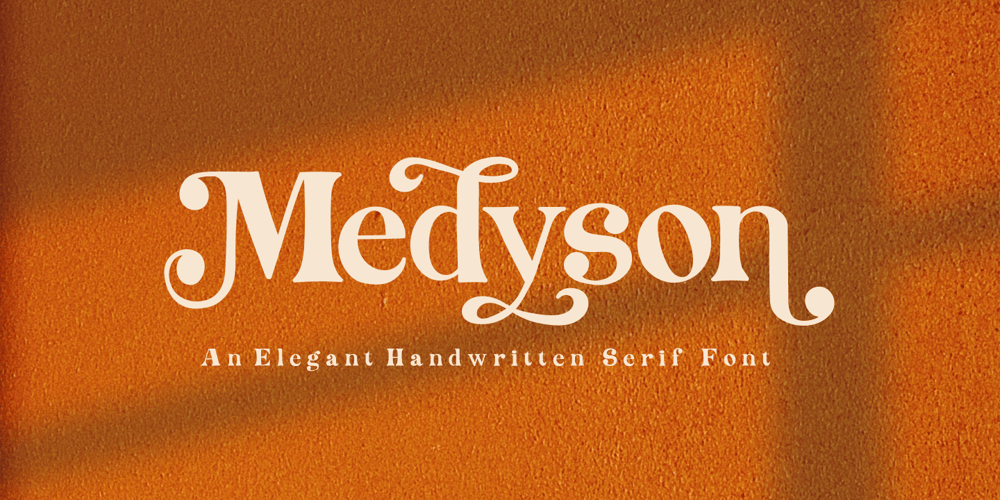
Medyson Font Family was designed by Risca Anitawati and published by Reyrey Blue Std. Medyson contains 1 styles and family package options. Medyson is an elegant and bold serif font. It is defined by smooth curves. It is perfect for branding projects, Logo design, Clothing Branding, packaging, magazine headings, advertising, T-shirts, postcards and much more. Add it confidently to your projects, and you won’t be disappointed.?Features· All Uppercase and Lowercase· Number & Symbol· Supported Languages· Alternates and Ligatures· PUA Encoded